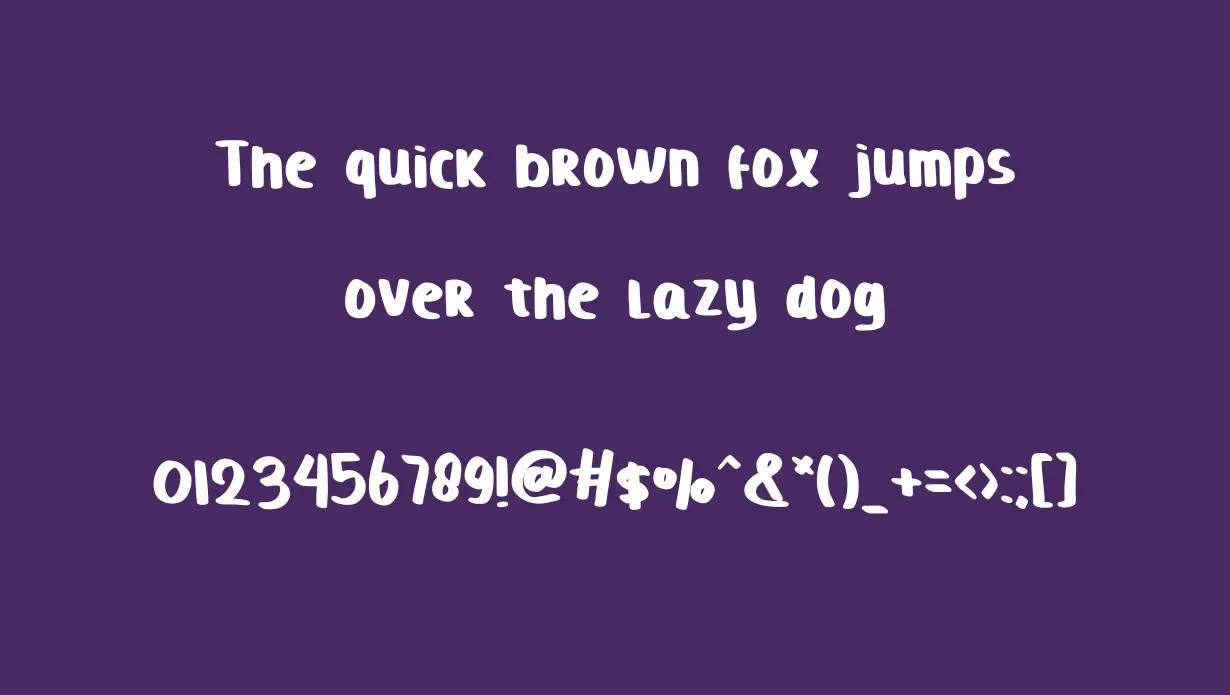
Alloha Font Free Download
Alloha Font is a bold typeface with distinctive characters. This versatile typeface is designed with the love and passion of Vultype Co. They crafted various other typefaces as well. The characters of this typeface are very similar to the Script font family.
The characters of this typeface are inspired by the Hawaii sign board. You can Pair this typeface with Silka Font.
View of Alloha Regular Font